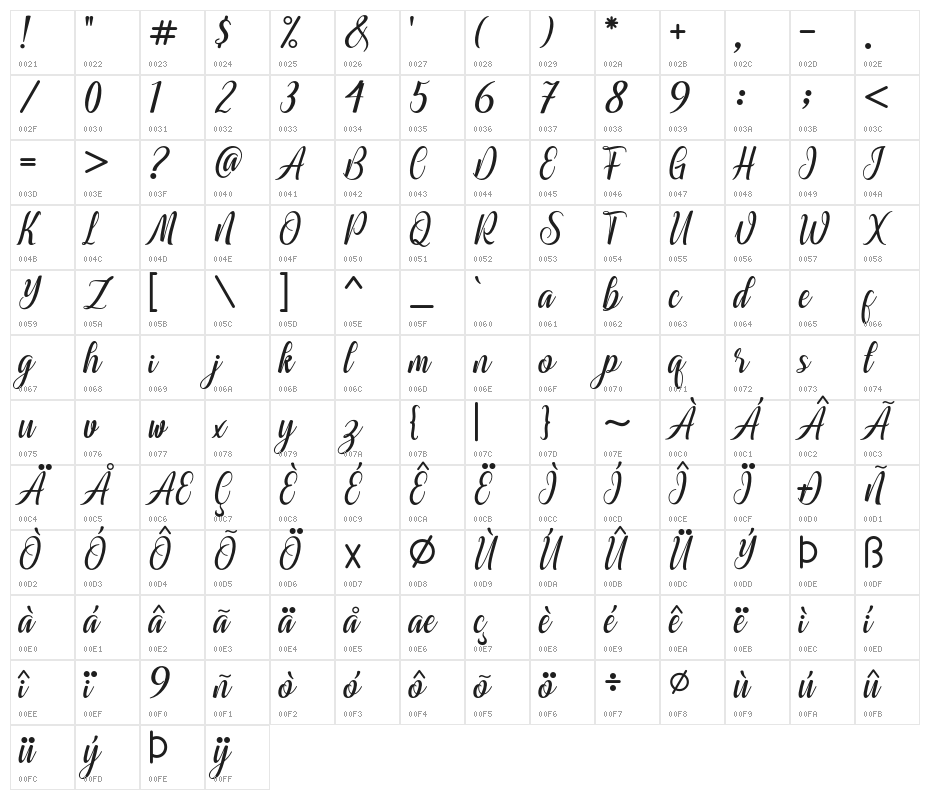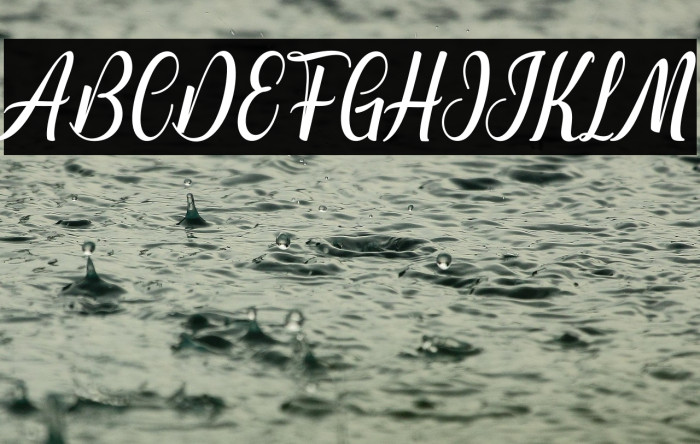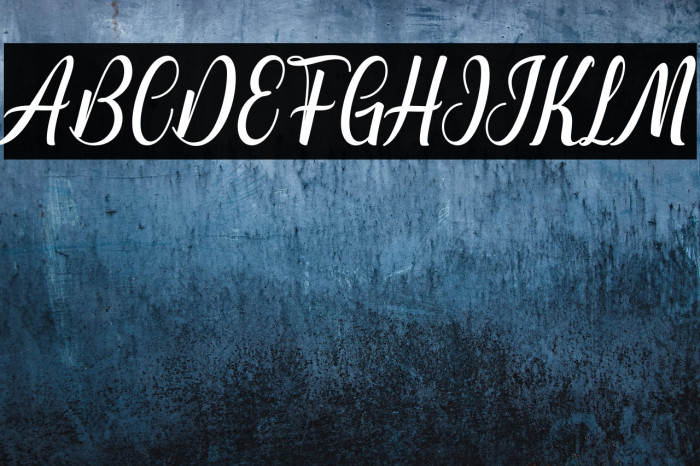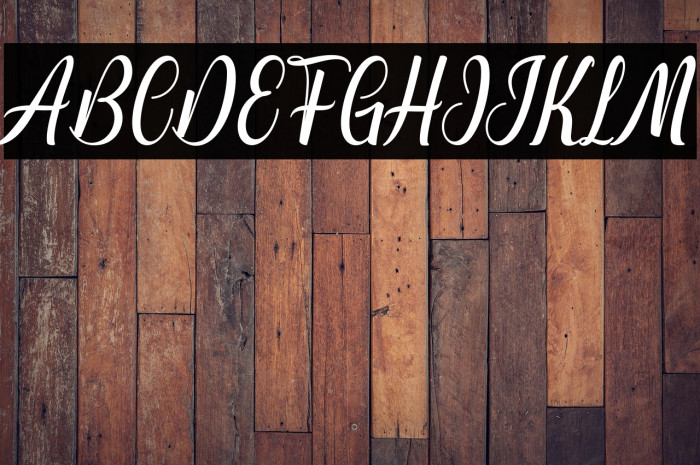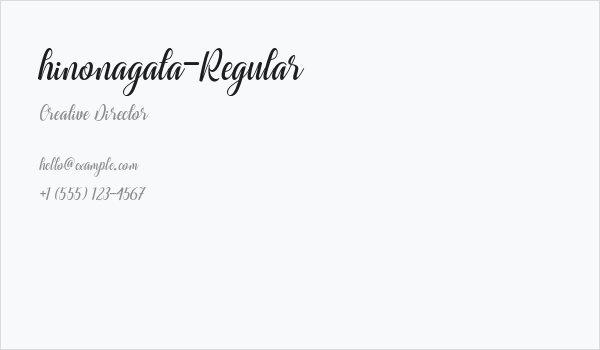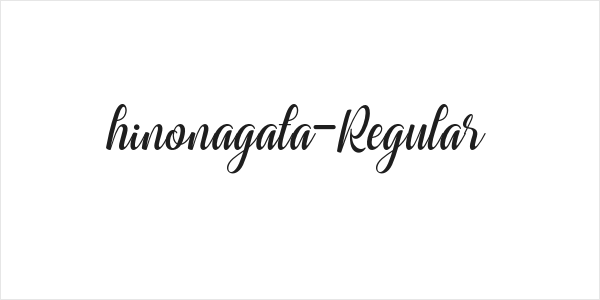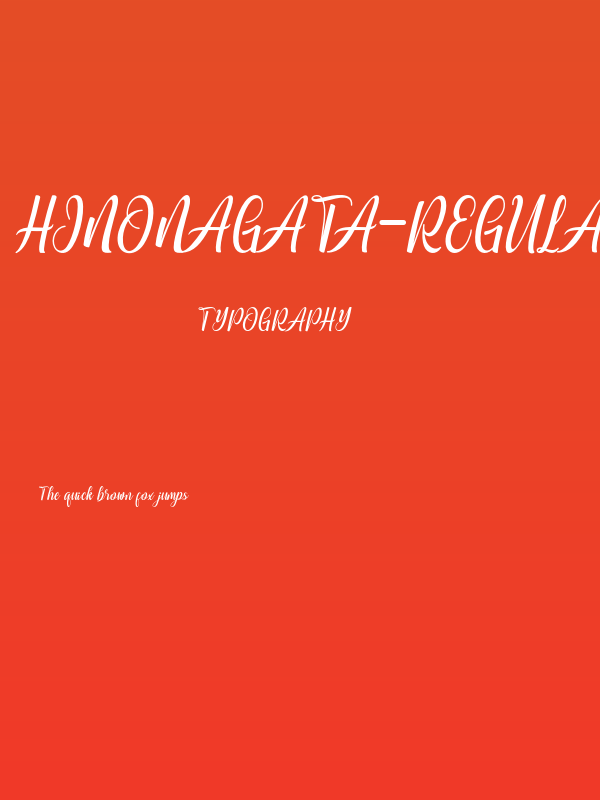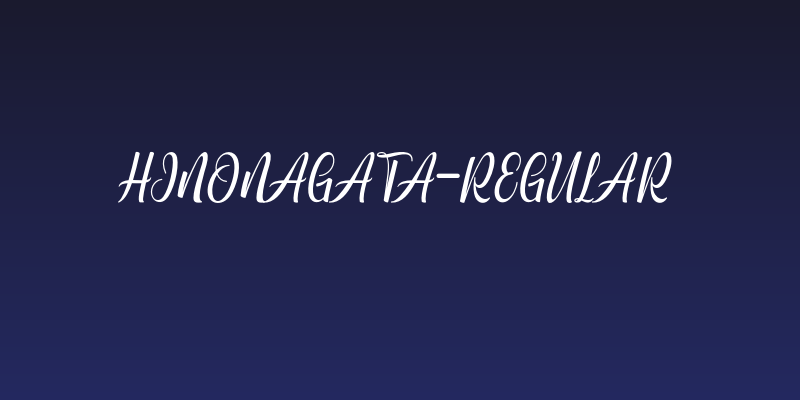
hinonagata-Regular Font
hinonagata-Regular Description
This font features an elegant, flowing script style with a modern touch. The uppercase letters are characterized by their graceful curves and loops, giving them a sophisticated appearance. The lowercase letters maintain a consistent flow, with smooth connections between each character, enhancing readability while preserving an artistic flair. The numerals are designed with a similar elegance, featuring subtle curves that complement the overall style. Special characters are integrated seamlessly, maintaining the font's cohesive look. This font is perfect for projects that require a touch of elegance and sophistication.